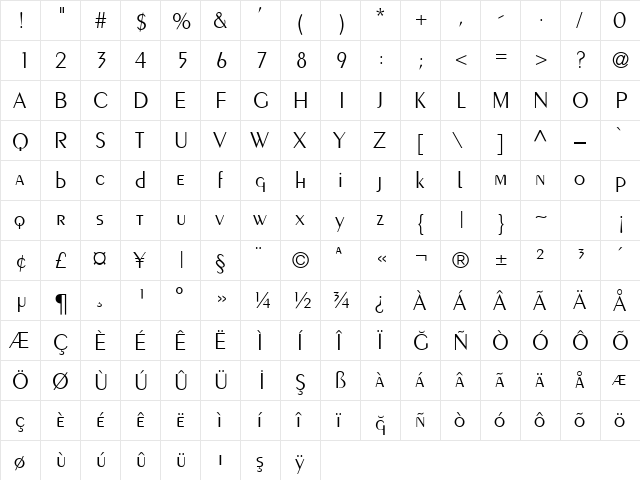
TrSah Penguin Light Plain
Design Context for TrSah Penguin Light Typeface
TrSah Penguin Light takes a measured approach to typography — its balanced proportions and neutral character make it a reliable workhorse for both digital and print work. Its slender proportions lend an understated elegance to any composition.